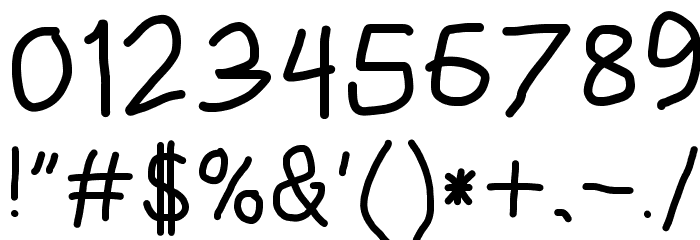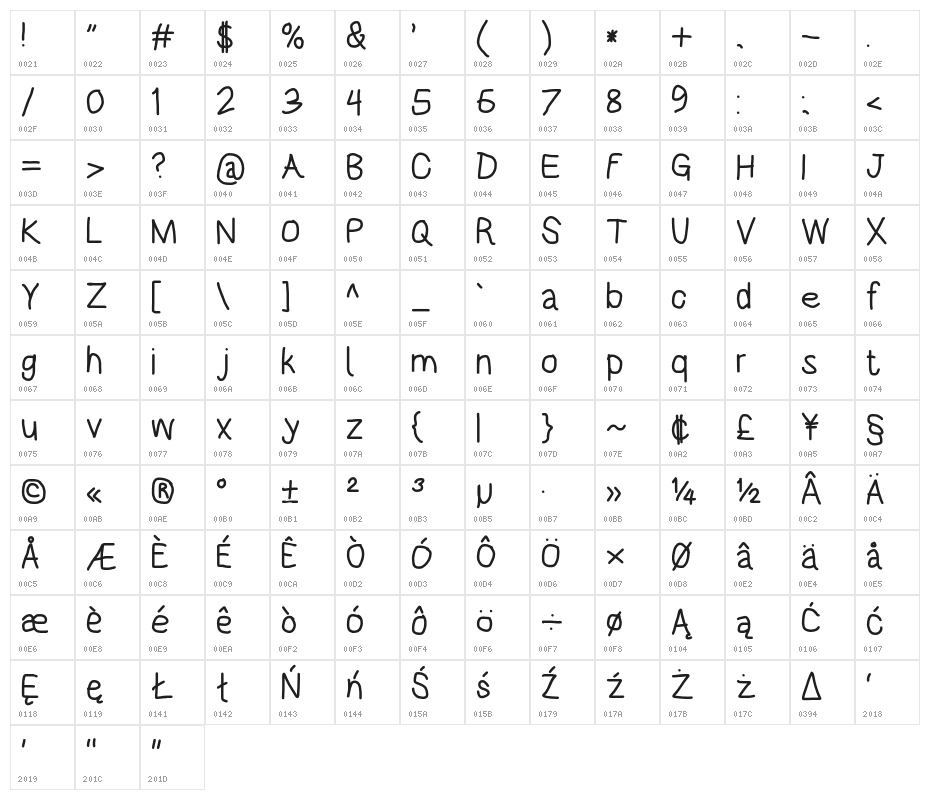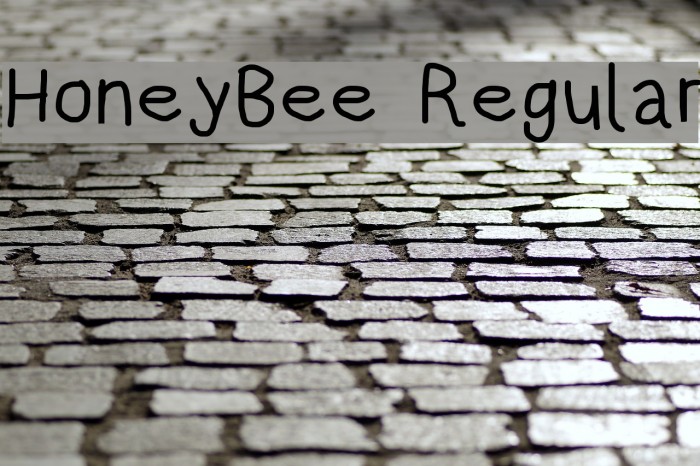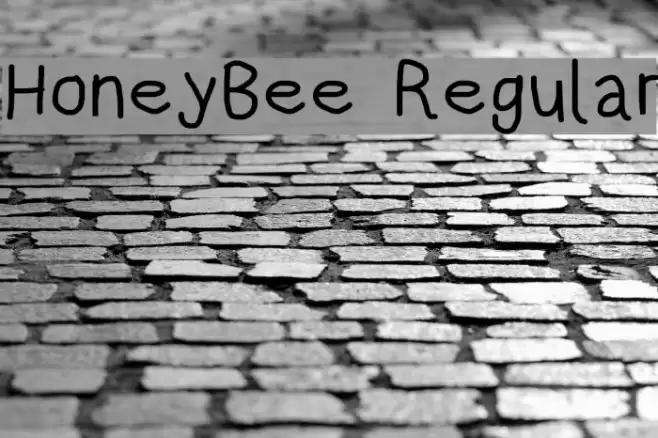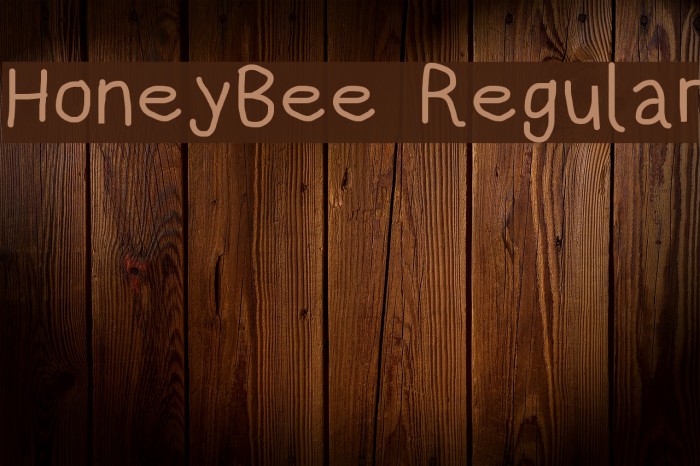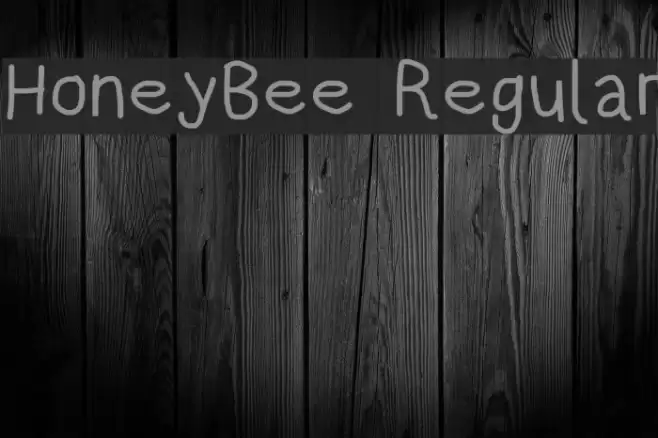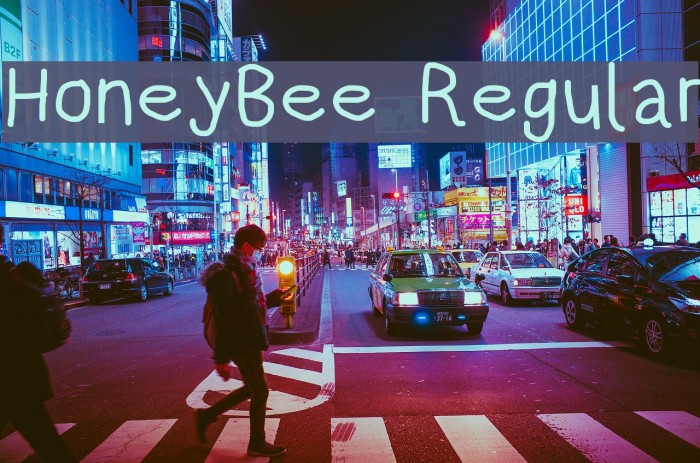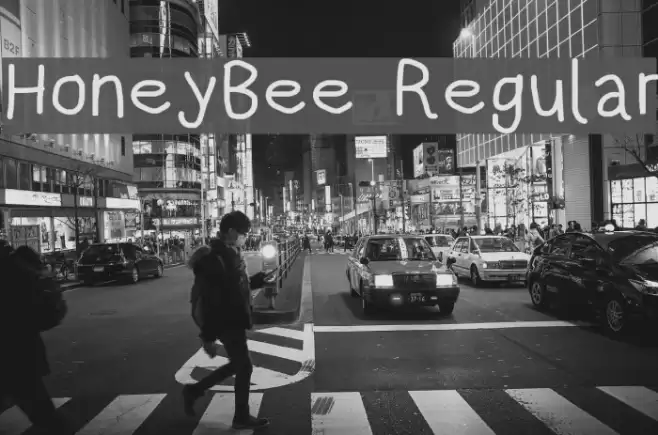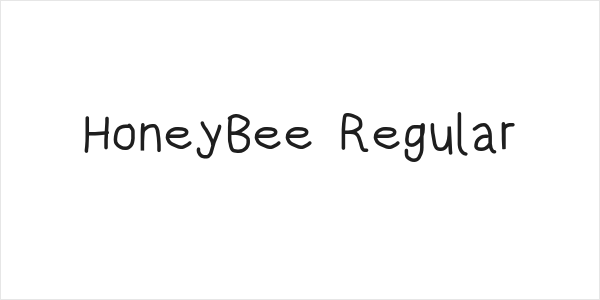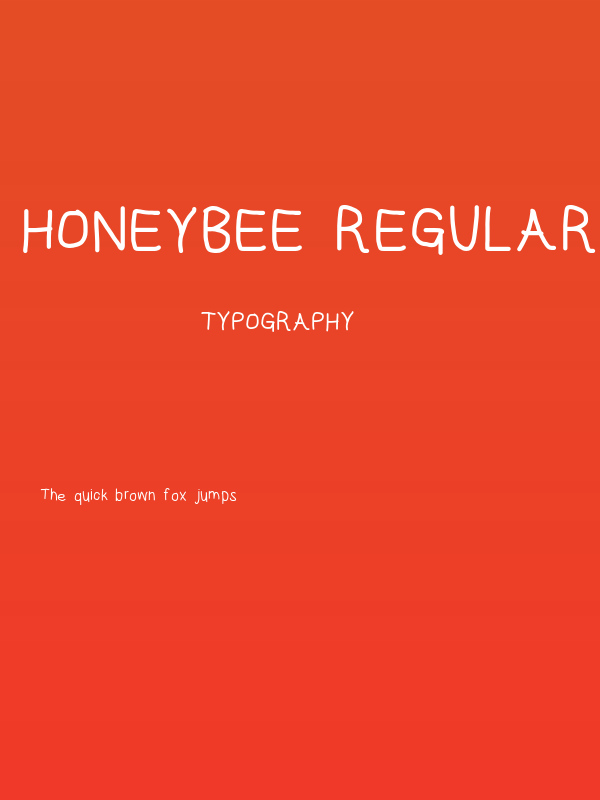
HoneyBee Regular Font
HoneyBee Regular Description
This playful and whimsical font features a handwritten style with a casual, friendly appearance. The characters are slightly rounded with a consistent stroke width, giving it a warm and approachable feel. The uppercase letters are bold and prominent, while the lowercase letters maintain a consistent flow, enhancing readability. The numerals are clear and distinct, matching the overall style of the alphabet. Special characters are creatively designed, adding to the font's charm. This font is perfect for projects that require a personal touch, such as invitations, greeting cards, or children's book covers.
| Proposed Projects | Ideal for invitations, greeting cards, children's book covers, and playful branding. |